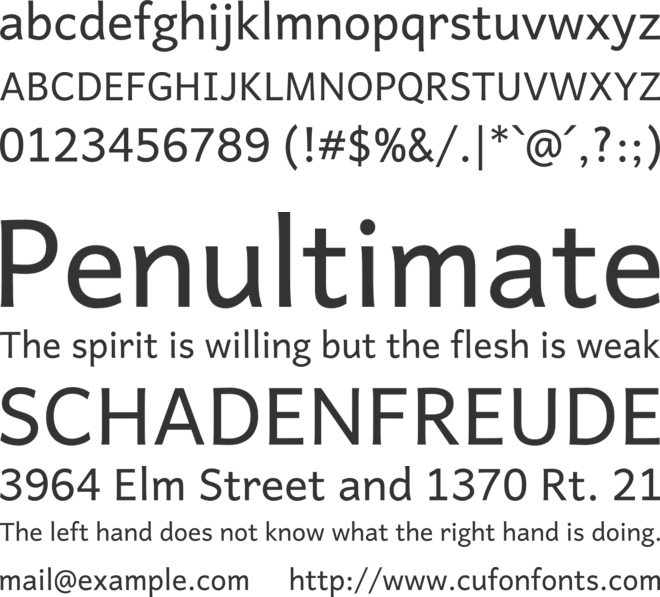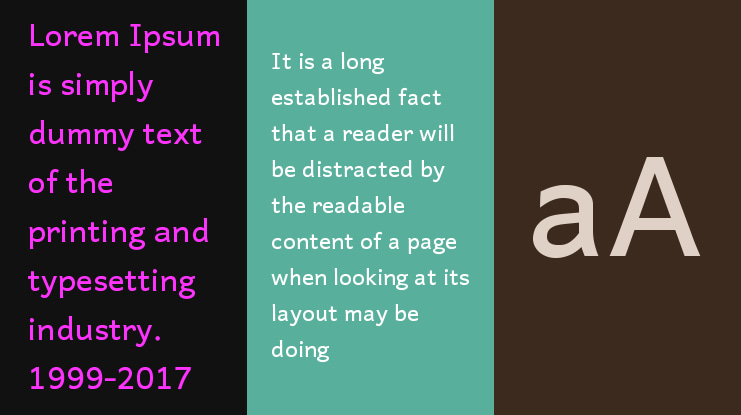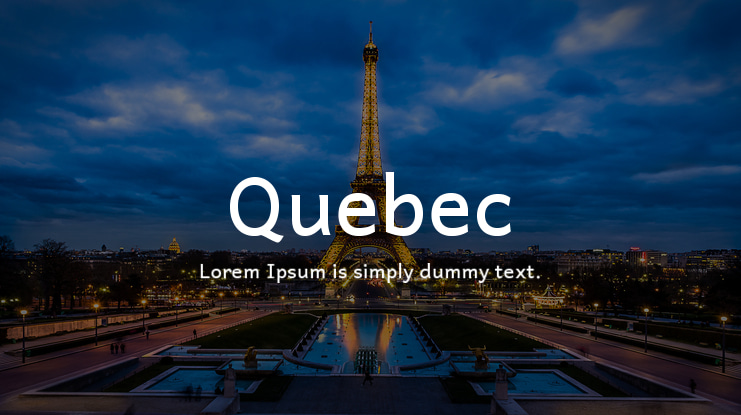
Victor Gaultney, Annie Olsen, Pablo Ugerman
Québec is an expansion of Andika New Basic, version 5.500, with main changes being: Flattening and expansion of double-storey 'a' and 'g', Expansion from 2 to 4 weights, and (still to do) incorporating ligatures fi and fl. Québec is released under SIL Open Font License, v1.1. Which comes in this ZIP is the official OTF files generated by me with FontForge.